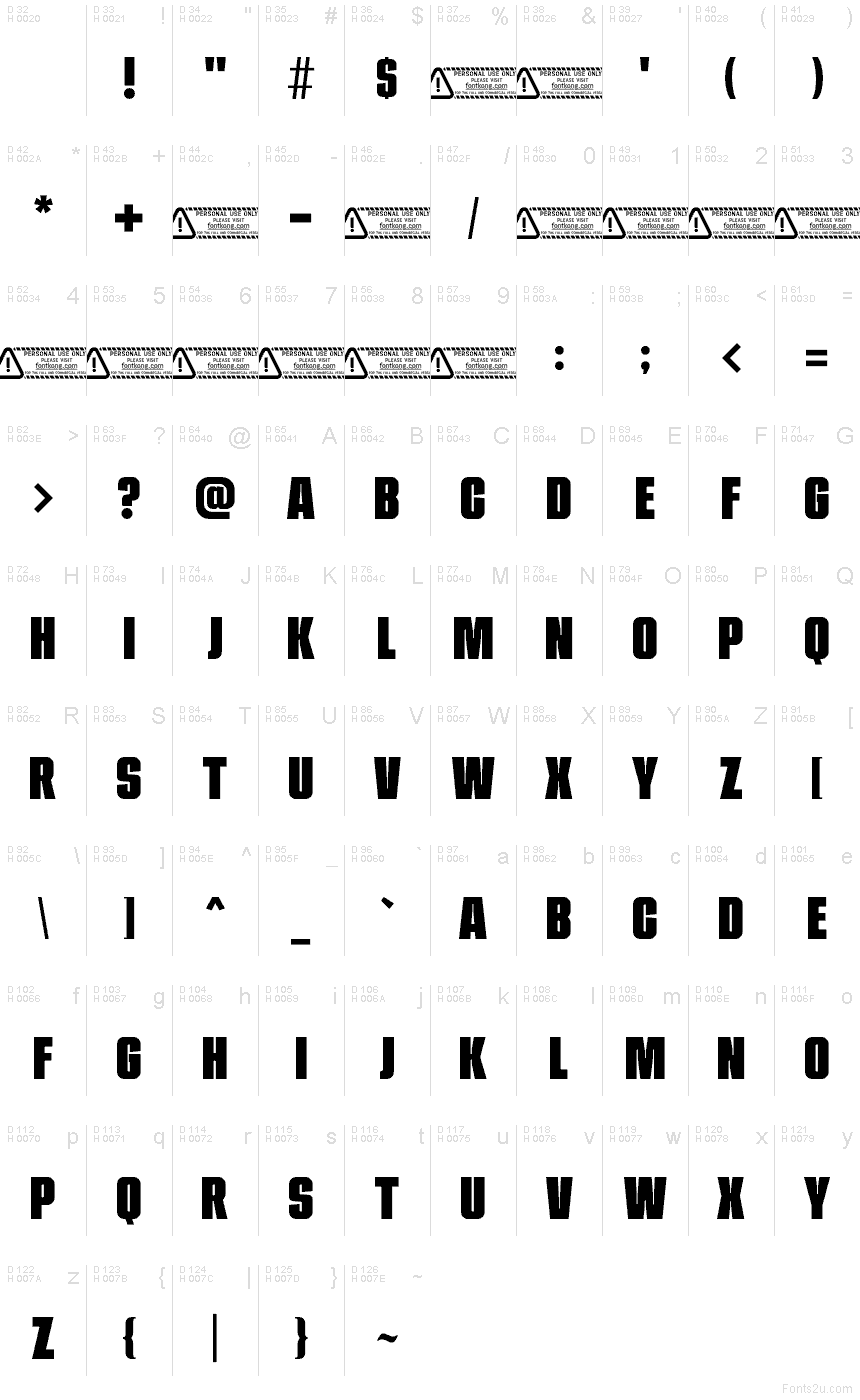
Survivel font by Kong Font is a hard-edged geometric typeface with a strong impact. It features letters with aggressive straight lines and authentic details. Its masculine feel, assertive presence, and arrangement of low descenders make it ideal for high readability of numerous headlines and titles that require attention.
The free sans serif font has condensed proportions which makes it highly useful for print design projects including newspapers, books, magazines, and brochures. It is also valuable in product packaging designs (food and drinks), social media posts designing (slogans), apparel graphic designs, signages for stores among others.